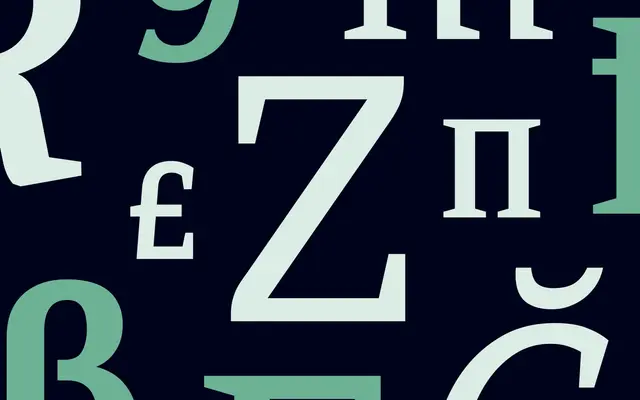
Cordale
Dalton Maag · Fabio Haag, Ron Carpenter, Lukas Paltram · 2021
Cordale specimen from Dalton Maag
A contemporary text serif by Fabio Haag, Ron Carpenter and Lukas Paltram with four essential styles, drawn for editorial work in print and digital across Arabic, Cyrillic, Greek and Latin.
A text serif by Fabio Haag, Ron Carpenter and Lukas Paltram with the four core styles needed for long-form reading: Regular, Italic, Bold and Bold Italic. The voice is calm and accessible, with multi-script support across Arabic, Cyrillic, Greek and Latin Extended that suits global publishers and brands. Pair it with a contemporary humanist sans like Foco or Effra for editorial systems that need to behave well in both print and digital.
Dalton Maag describe Cordale as a versatile contemporary serif text typeface with four essential styles, intended for editorial and long-form use across print and digital and across multiple writing systems.